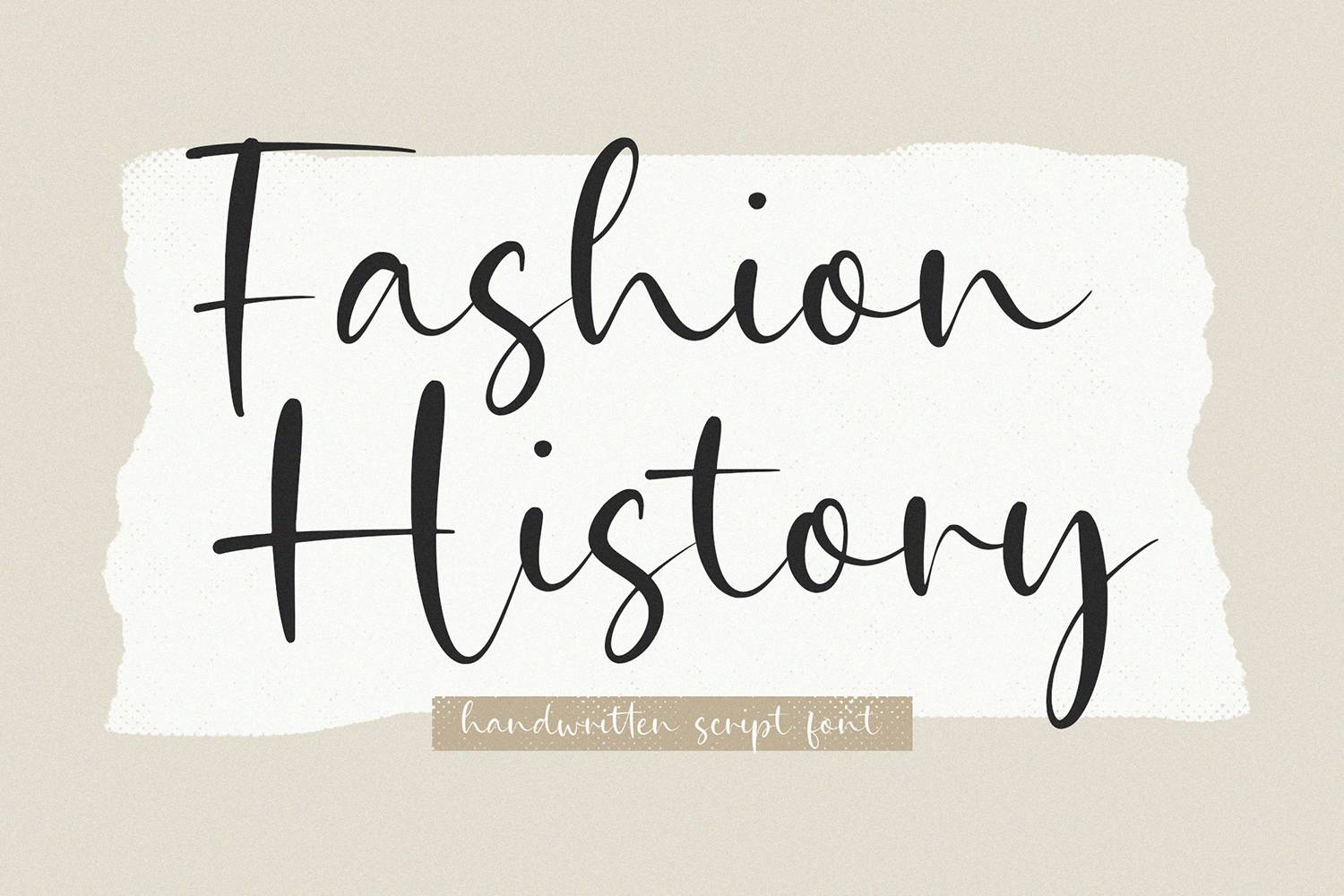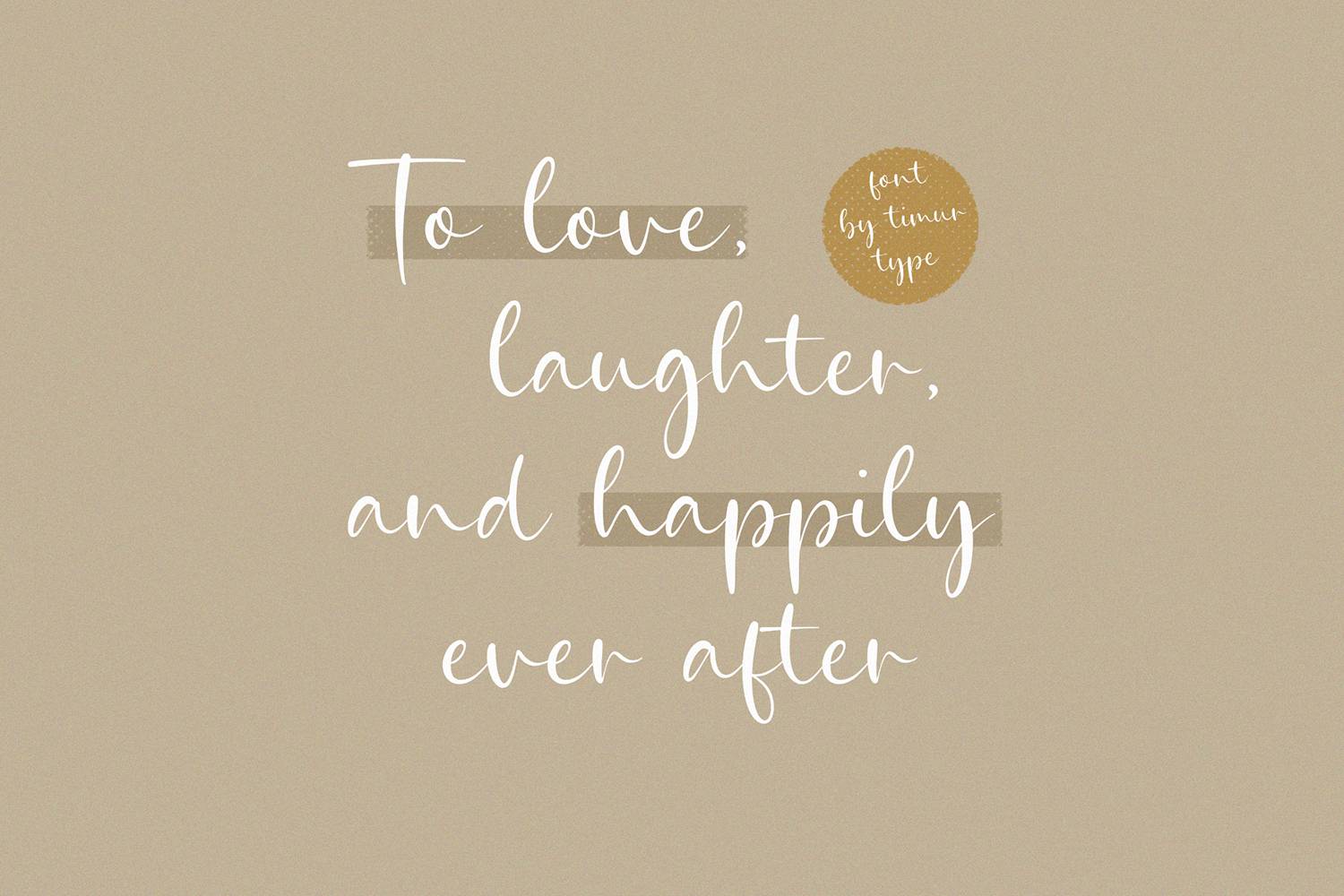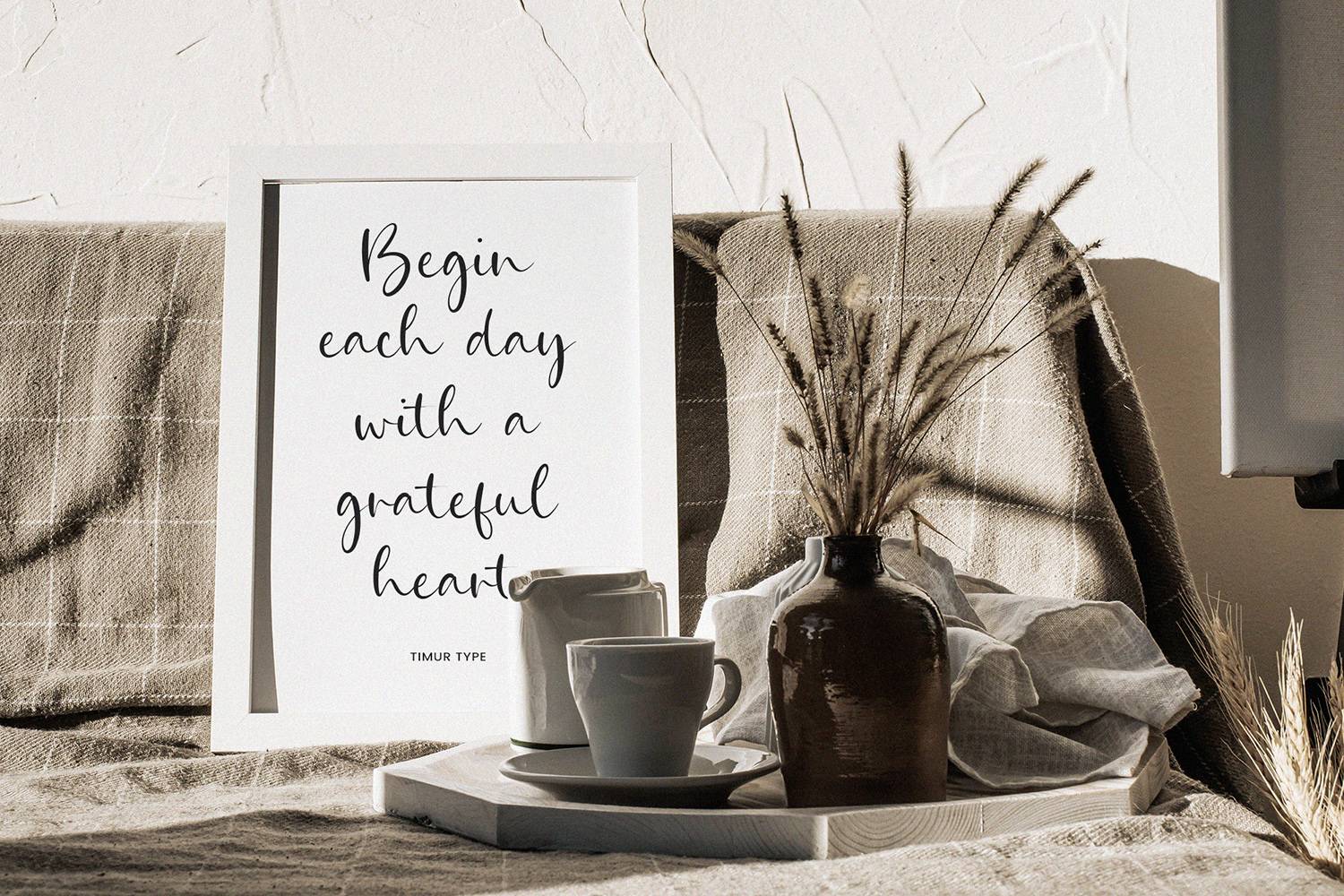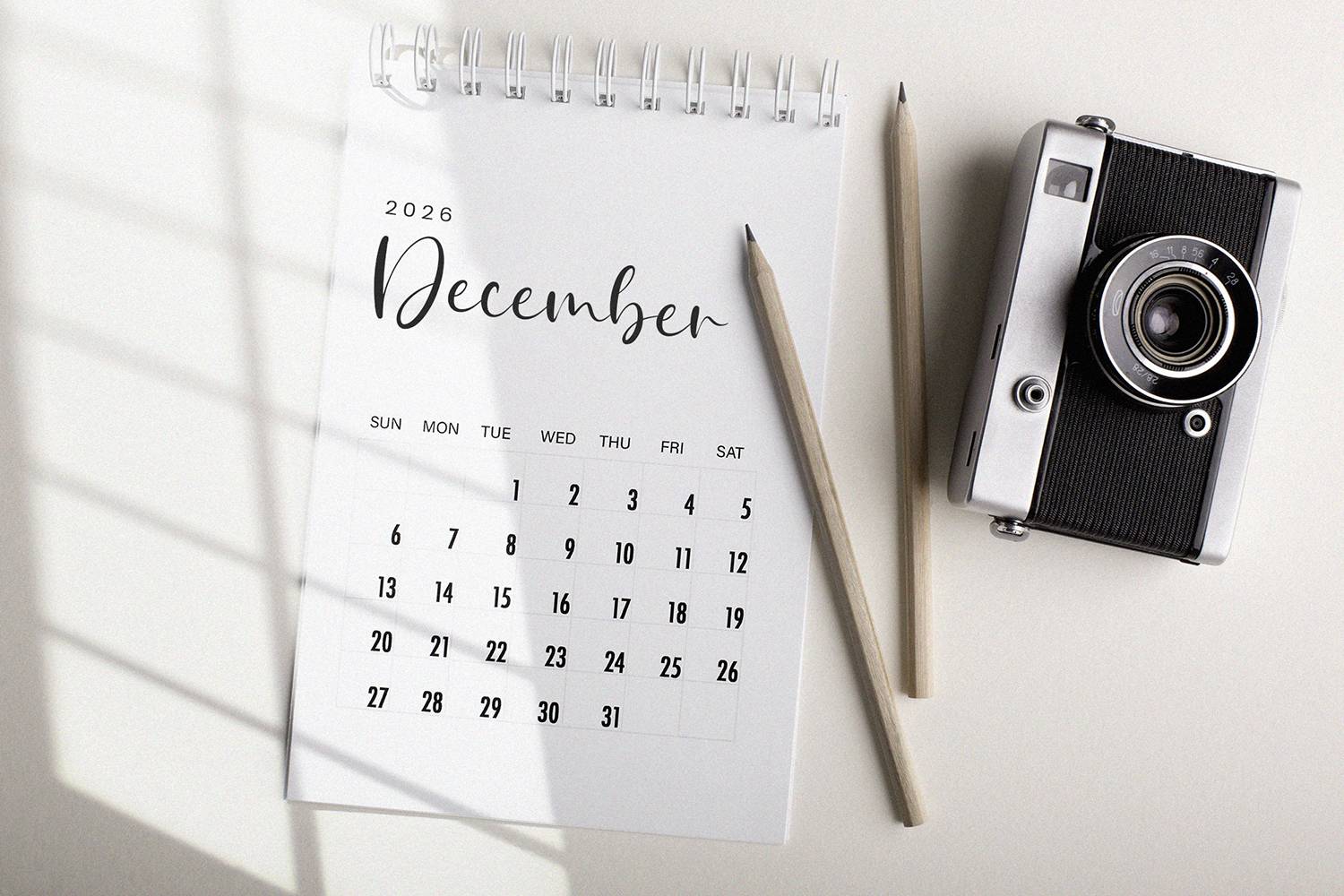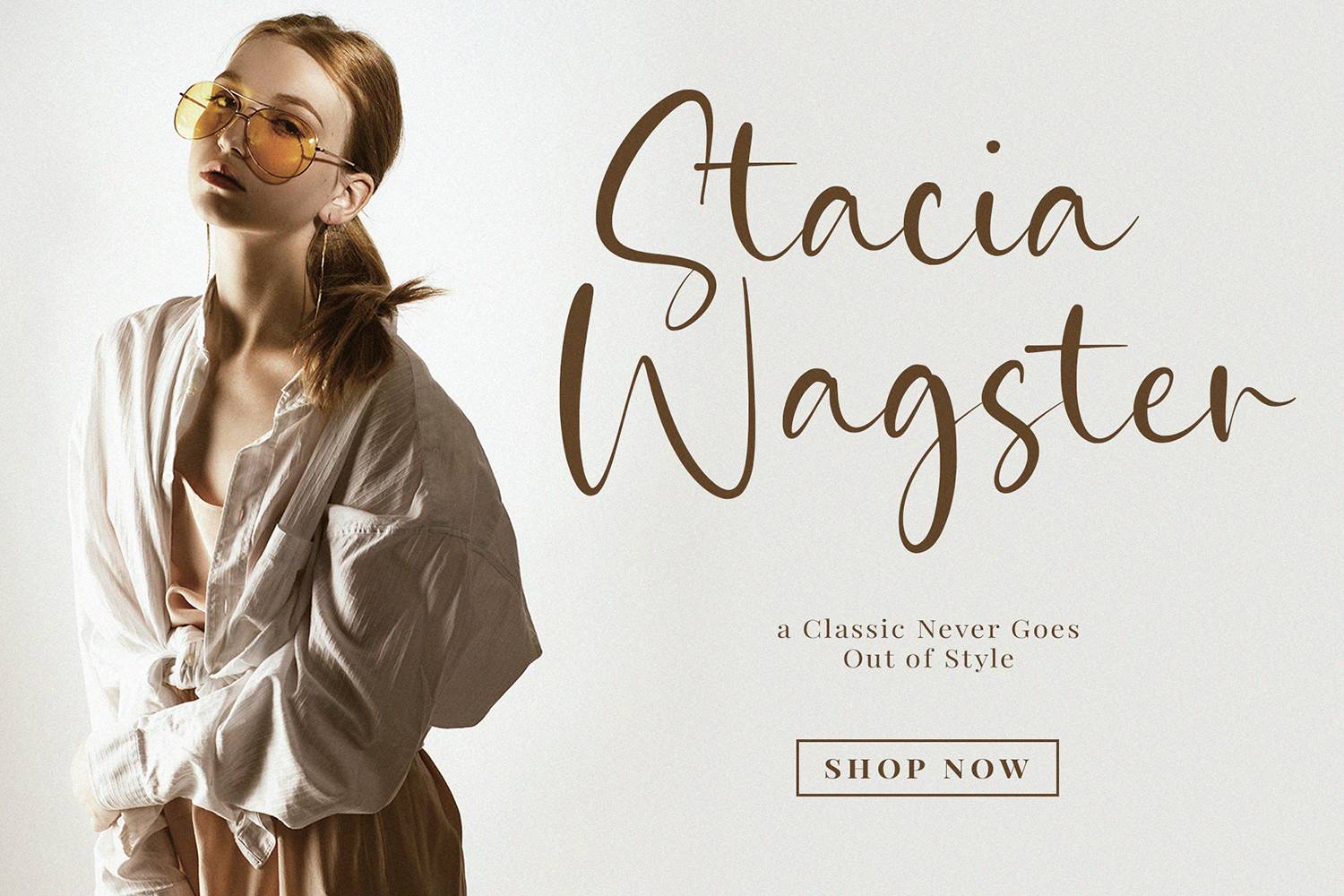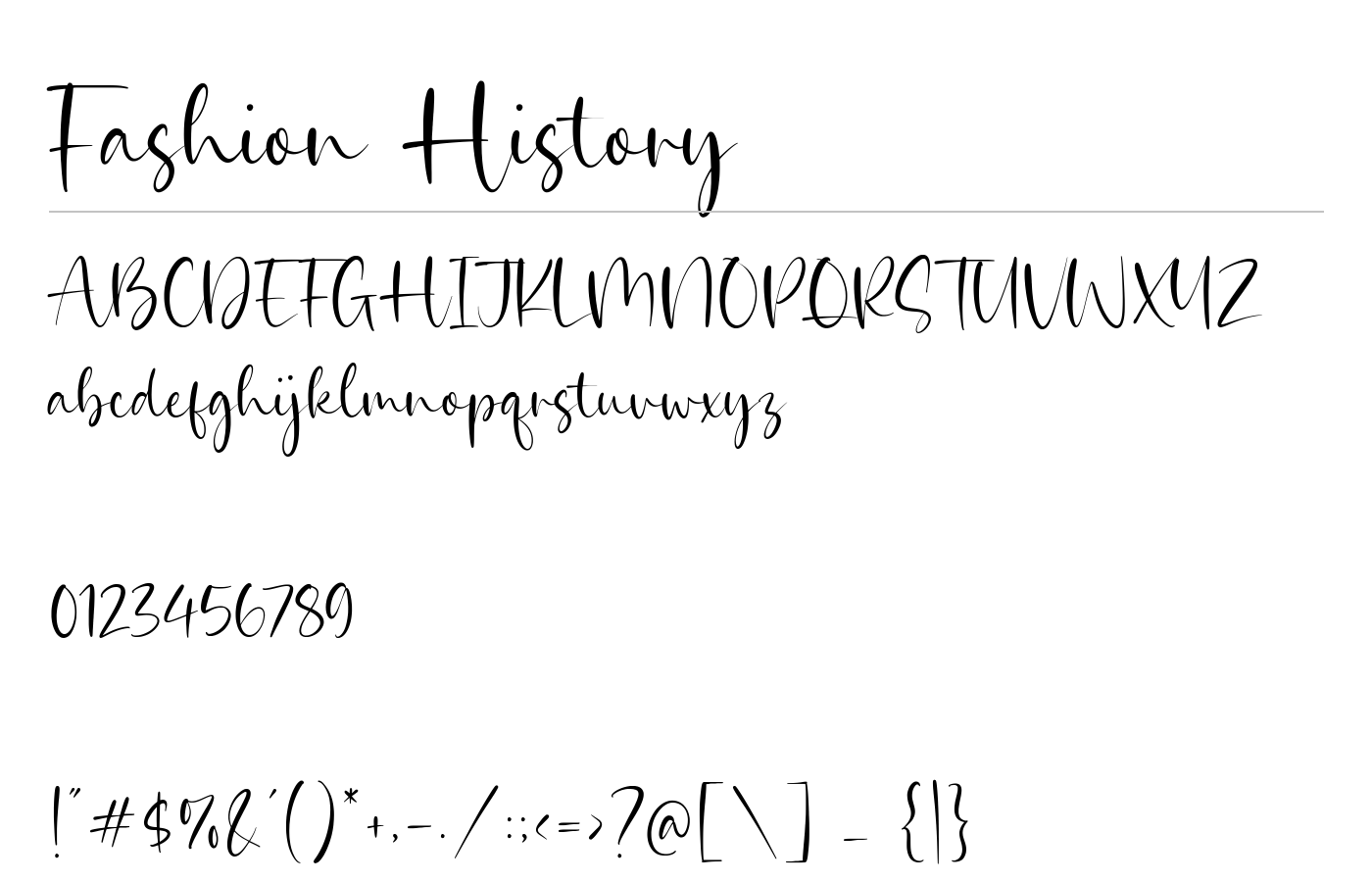
Fashion History is a delicate, handwritten script font with a casual and elegant charm. Its slender strokes and playful, slightly uneven letterforms give it a warm, personal touch that suits fashion, lifestyle, and creative branding. Ideal for logos, invitations, and stylish headlines, it conveys a modern yet approachable sophistication.
Fashion History Font
About Fashion History Font